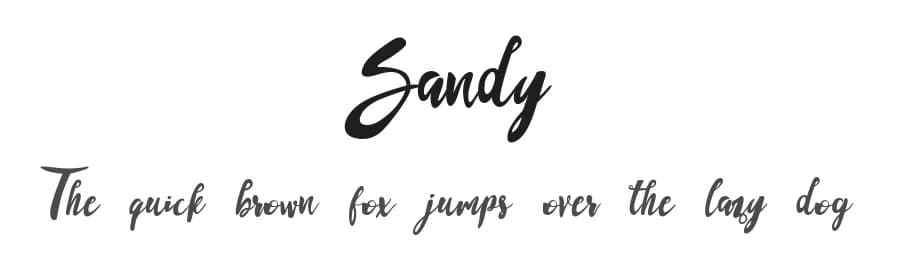
About Sandy Font
Sandy Font is a script font that shines as a display or heading face. Pair it with a clean sans-serif or serif font for body text β the contrast creates a clear hierarchy while the two styles stay balanced and easy to read.
Sandy Font